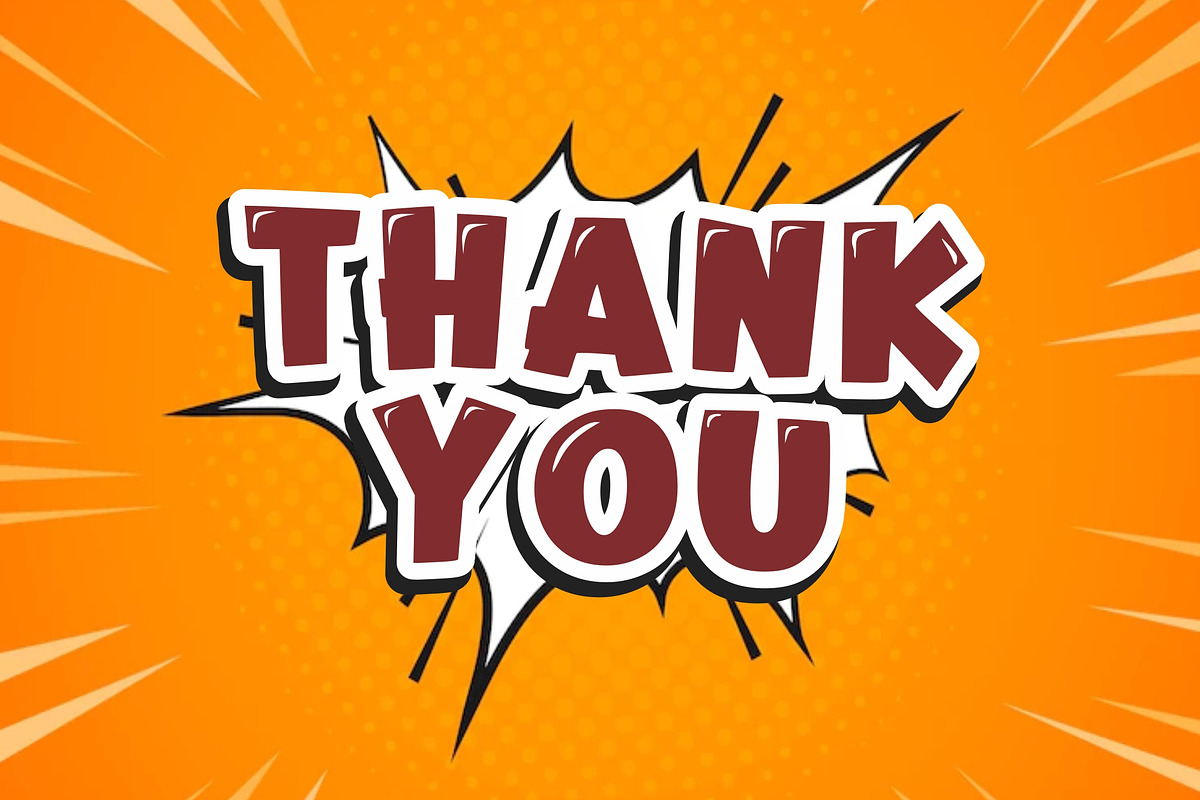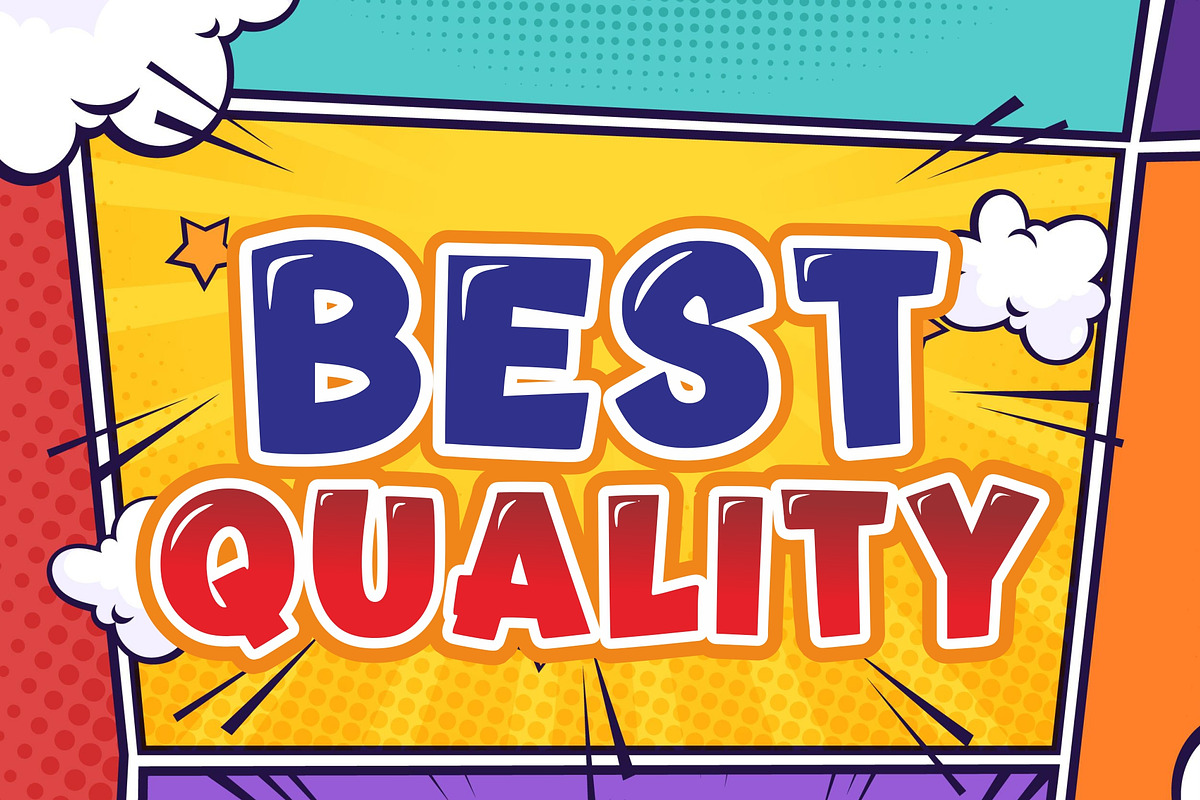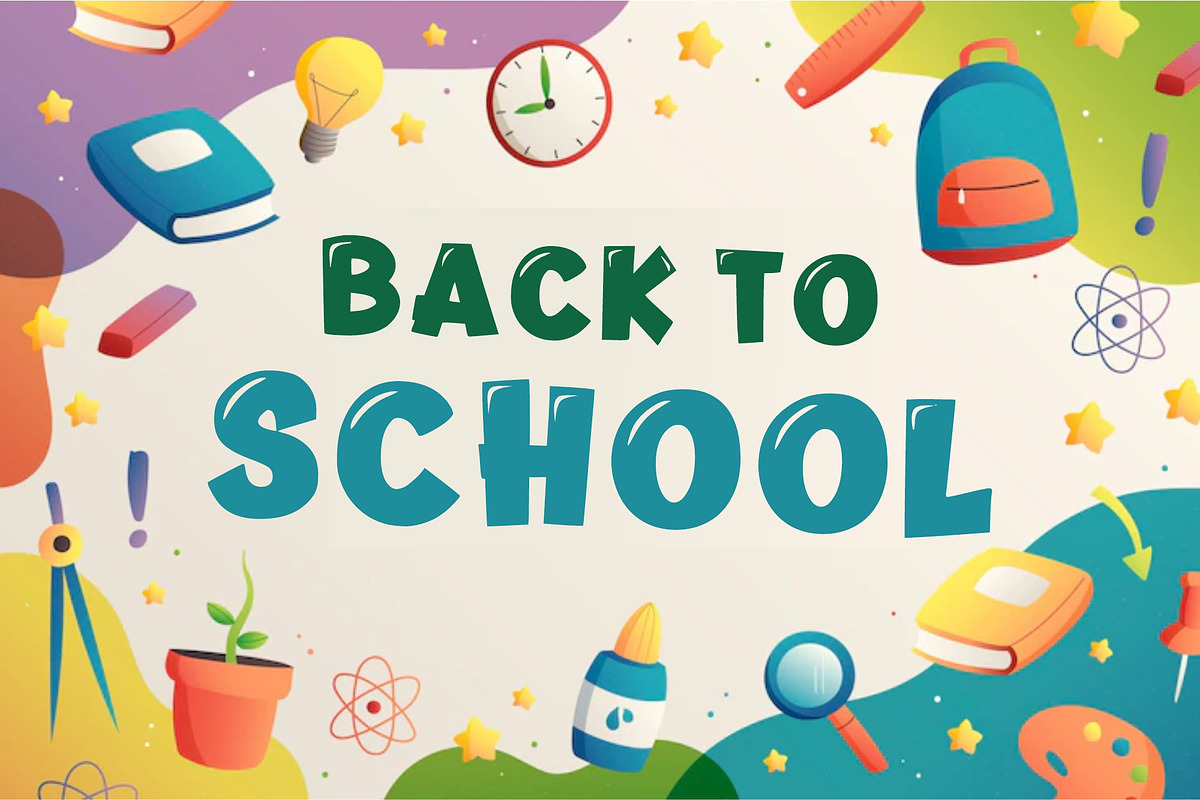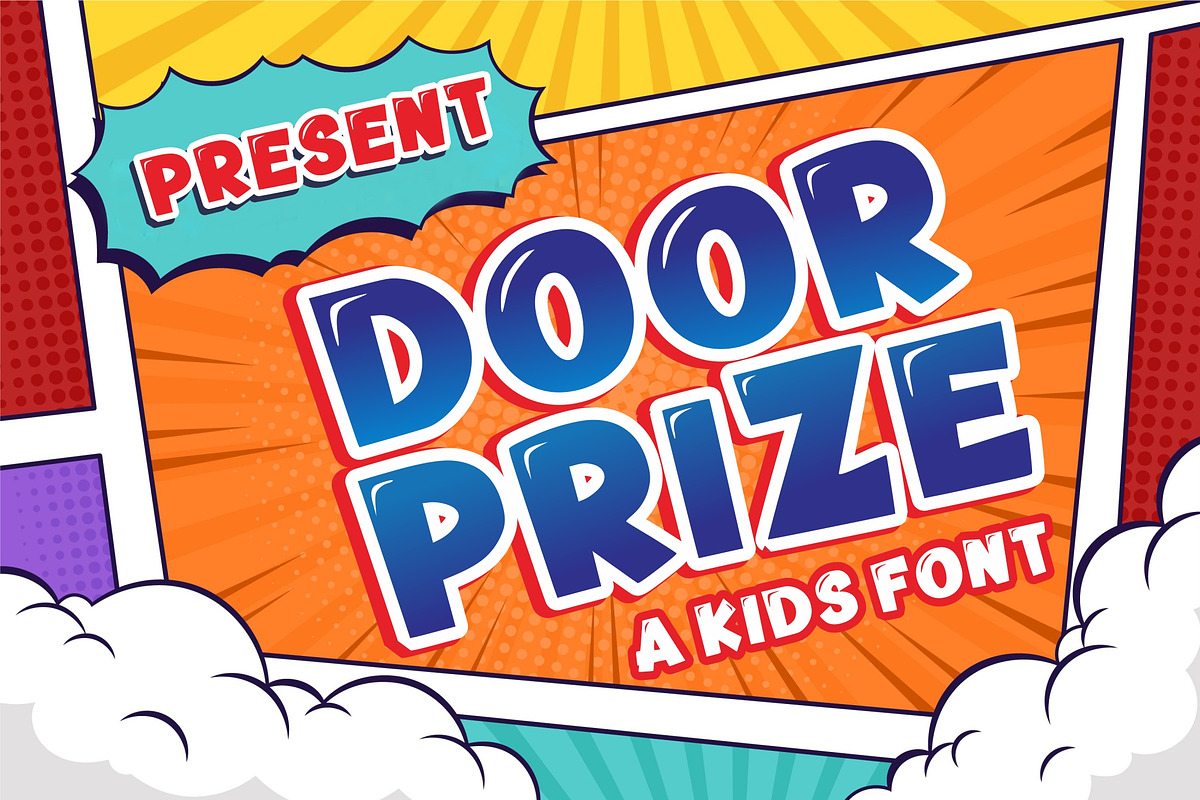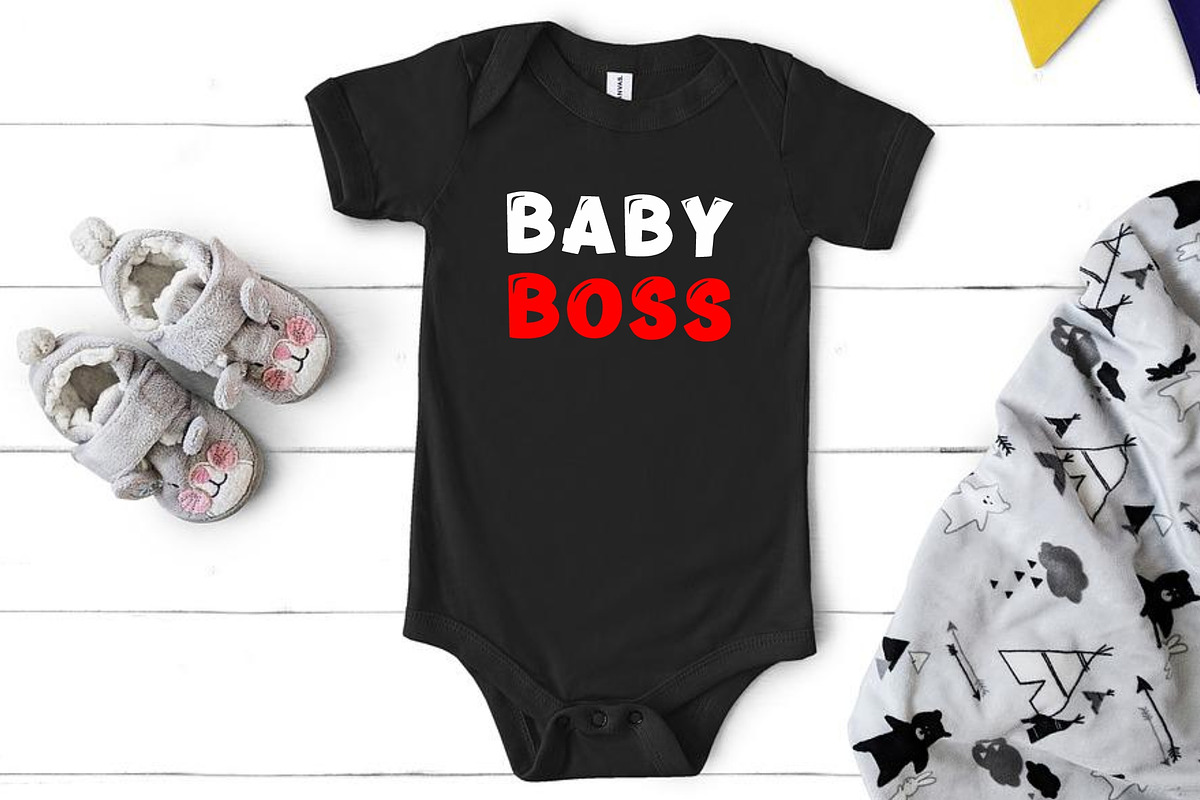
Door Prize
Doorprize is a childish and cheerful display font. Its informal and casual style makes it a top choice for any creation. It will look cool on visual designs and works such as product packaging, T-shirts, labels, posters, logos, and more.